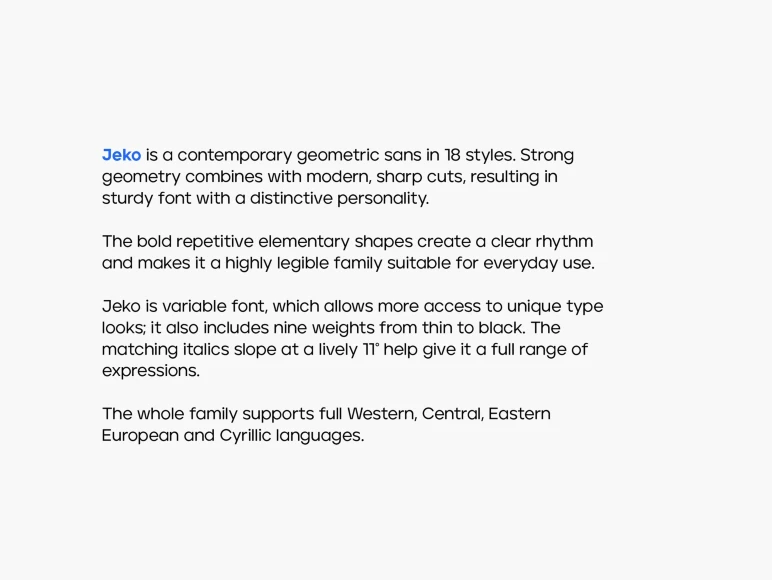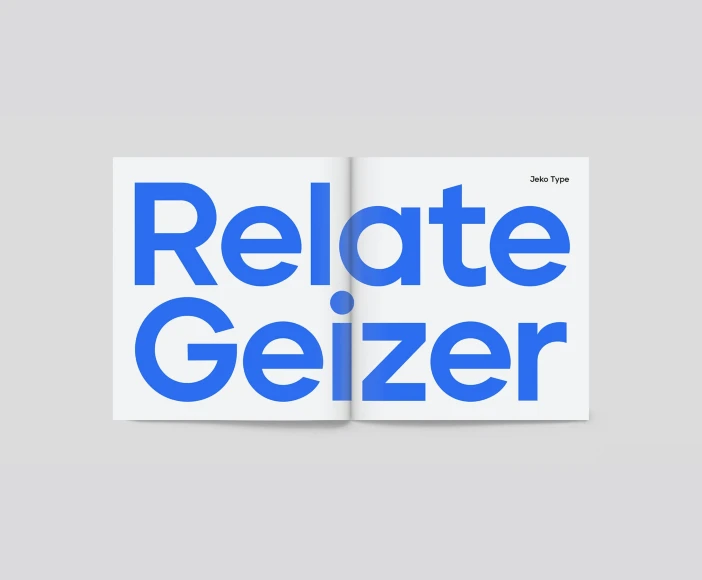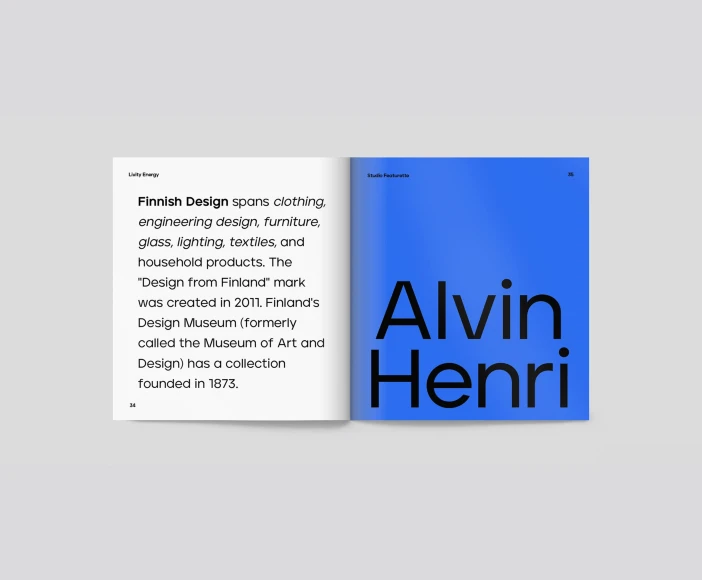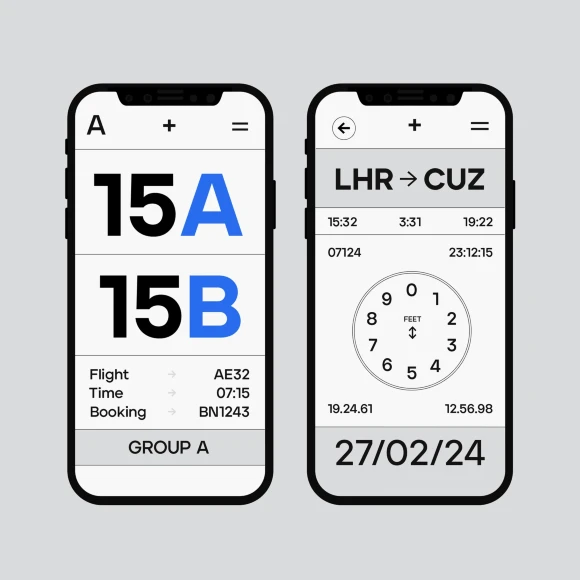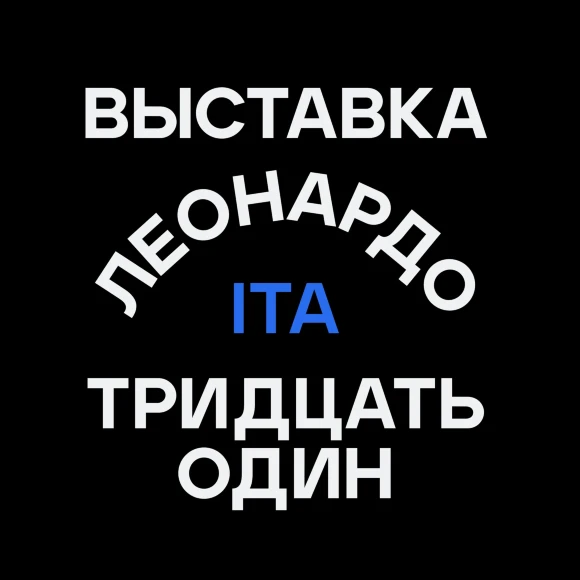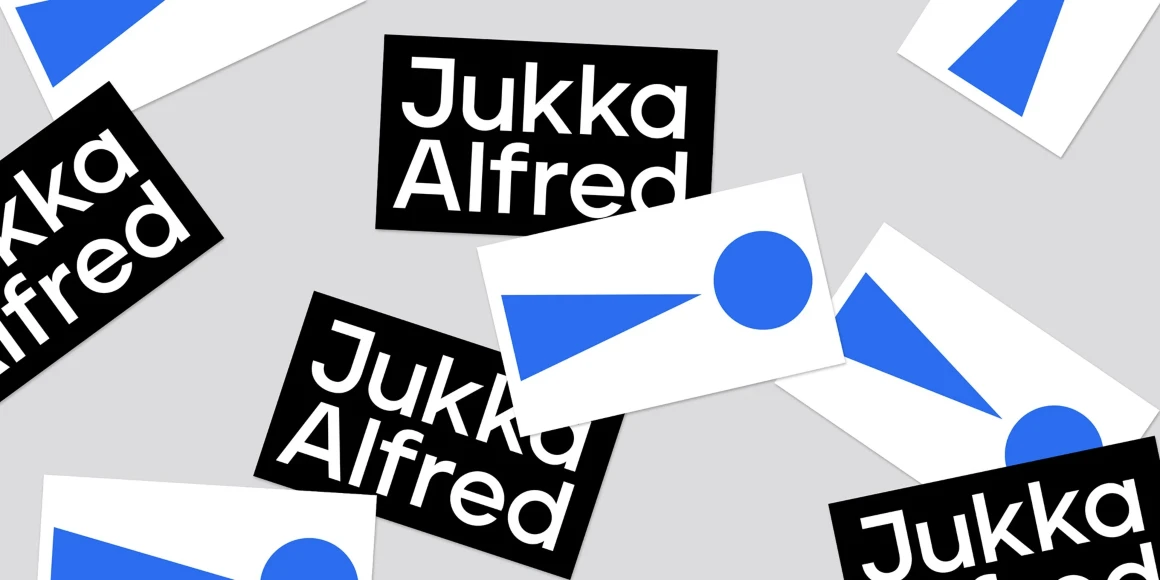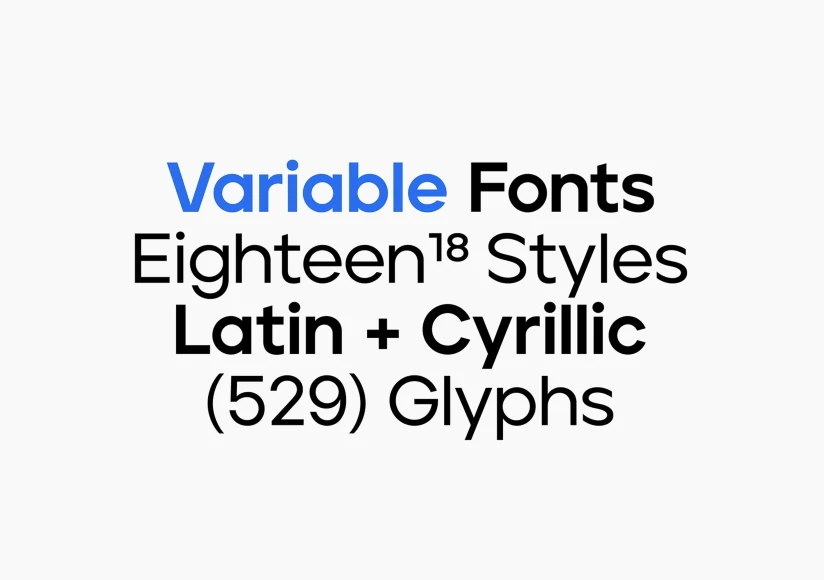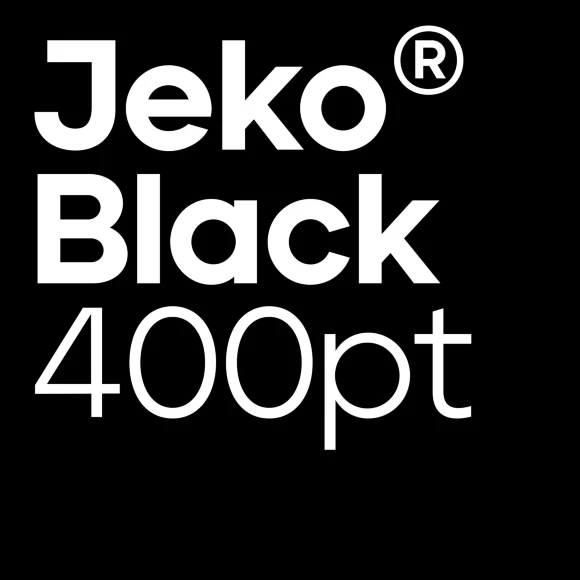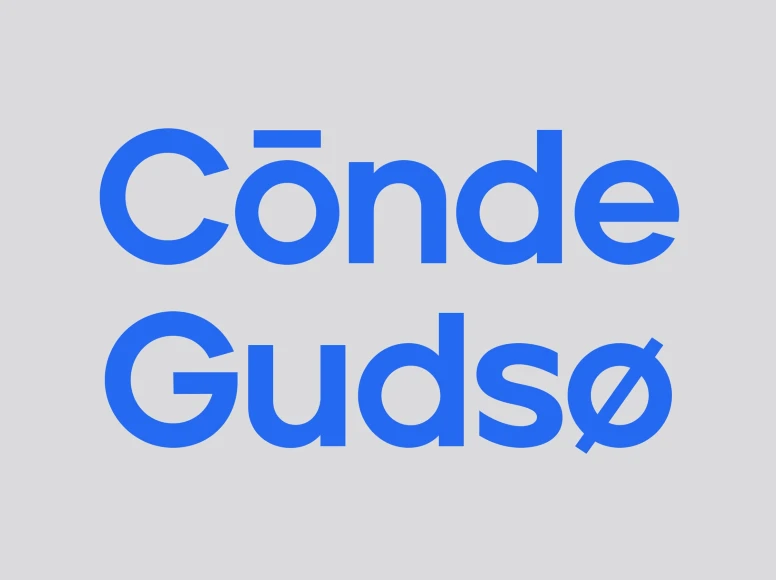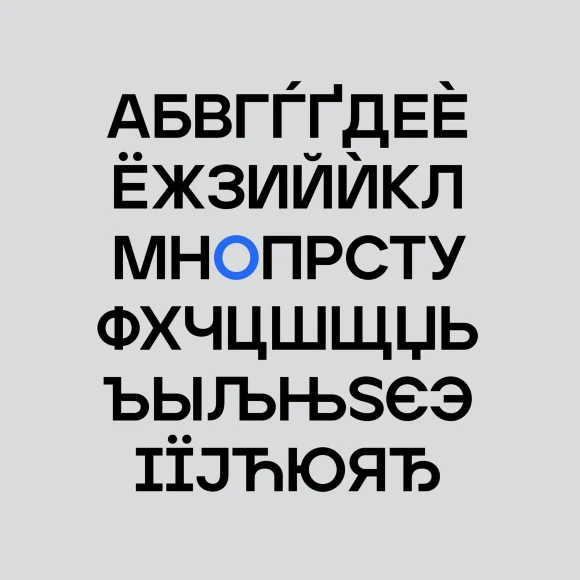
Jeko
Jeko, from Ellen Luff Type Foundry, is a contemporary geometric sans serif. Strong geometry, combined with modern, sharp cuts, results in a sturdy font with a distinctive personality. The concept of bold, repetitive, elementary shapes creates a clear rhythm, making it a highly legible family suitable for everyday use. Its high x-height and strong capitals ensure clear visibility across all weights and have been optically corrected for even better legibility. This fresh rework of the classic geometric style offers a wide range of potential applications, making it great for logos, branding, signage, interfaces, and design. Jeko is available in nine weights with matching italics and as a variable font, offering even more precision and unique styles.